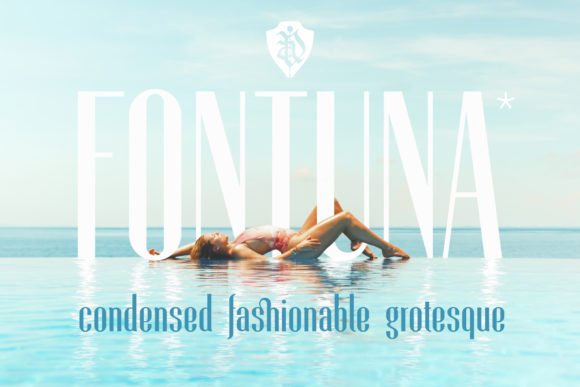
Behold Fontuna Font, the sans serif masterpiece crafted by NREY, where elegance meets simplicity. This font family exudes a captivating charm, ready to transform your designs into visual symphonies. With its graceful curves and modern allure, Fontuna Font is the perfect choice for those seeking a timeless and sophisticated aesthetic.
Step into a world of design possibilities with Fontuna Font. Its clean lines and open counters create a sense of airiness and readability, making it ideal for both digital and print projects. Whether you're crafting logos, branding materials, website designs, or eye-catching social media graphics, Fontuna Font will elevate your creations with its effortless grace.
Immerse yourself in the versatility of Fontuna Font. Its range of weights, from delicate hairlines to bold statements, allows you to convey a multitude of emotions and messages through your designs. Create elegant invitations, stylish posters, impactful headlines, or minimalist brochures, all with the transformative power of Fontuna Font.
Unleash your creativity and let Fontuna Font guide you towards design excellence. Its intuitive flow and harmonious proportions make it a joy to work with. Experience the seamless integration of Fontuna Font into your design software, allowing you to effortlessly bring your visions to life.
With Fontuna Font, you're not just downloading a font; you're embracing an artistic journey. Its timeless beauty will add a touch of refinement to your designs, leaving a lasting impression on your audience. Discover the endless possibilities that await you with Fontuna Font.